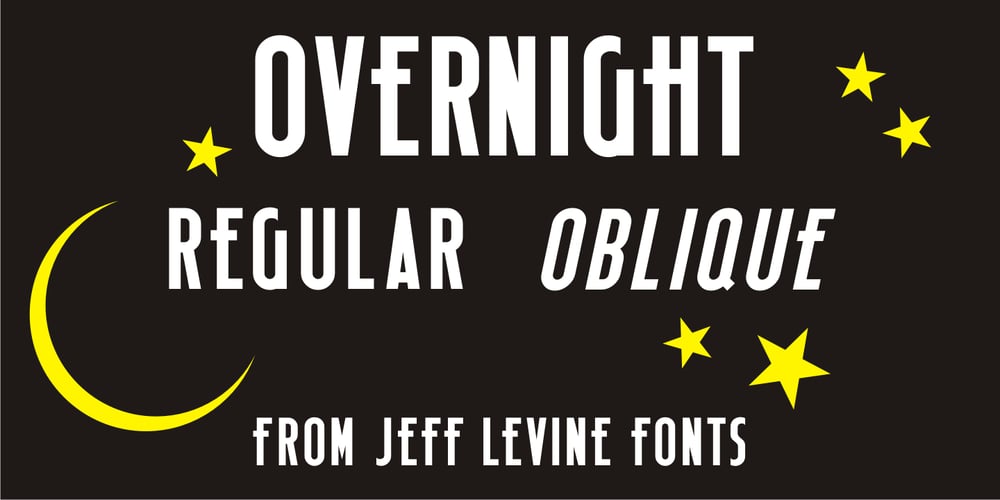
Overnight JNL Font Family was designed by Jeff Levine and published by Jeff Levine. Overnight JNL contains 2 styles and family package options. Hand lettering on the cover of the 1932 sheet music for “Sleep, Come On and Take Me” was the basis for Overnight JNL, which is available in both regular and oblique versions.